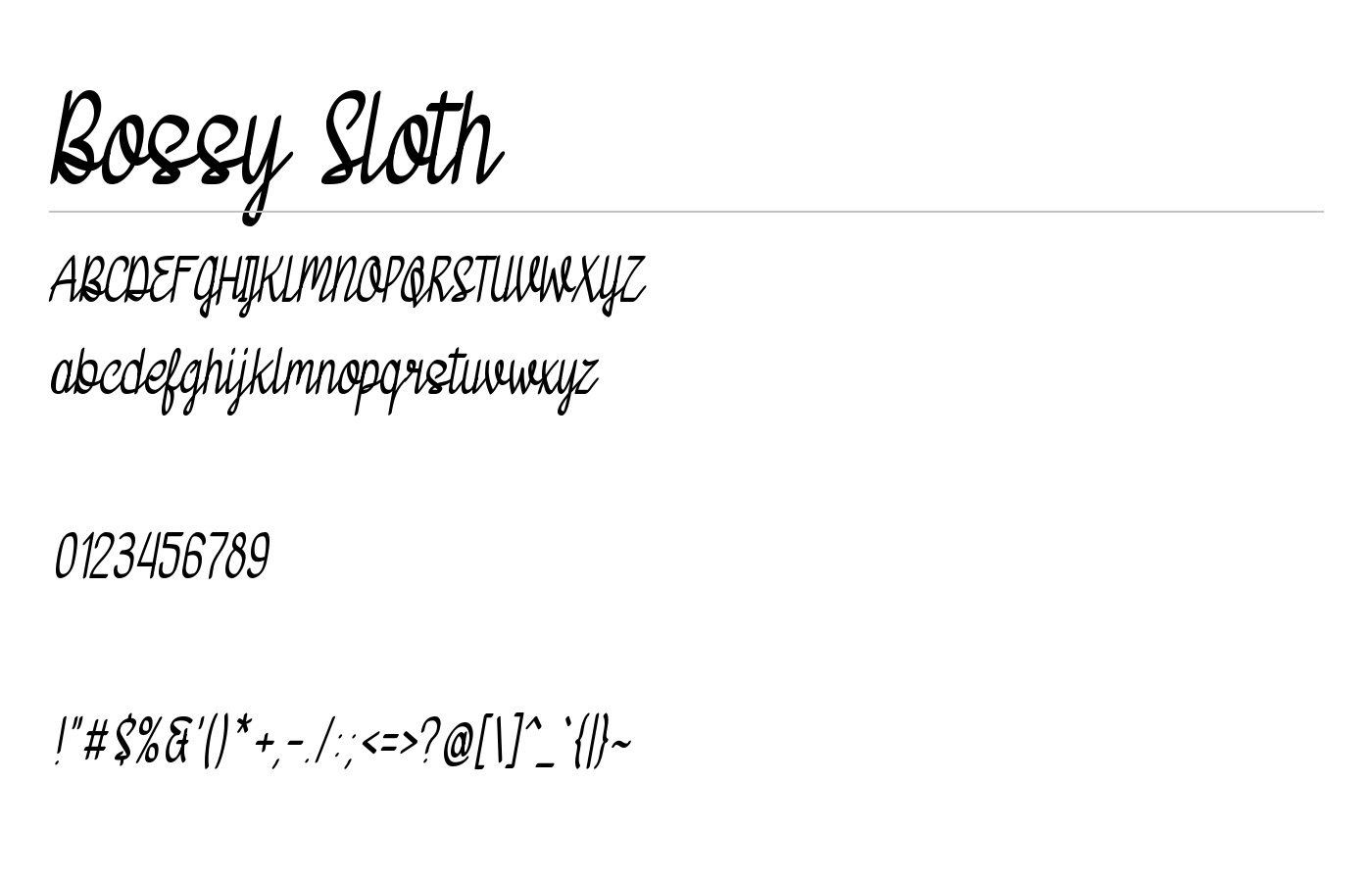
Bossy Sloth is a lively, narrow script font with a playful and energetic personality, characterized by its smooth, connected letterforms and slanted posture. Its thin strokes and elegant curves create a delicate yet confident feel, making it ideal for creative branding, invitations, and stylish headlines. This font works best where a personal, handcrafted look is desired to add charm and flair.
Bossy Sloth Font